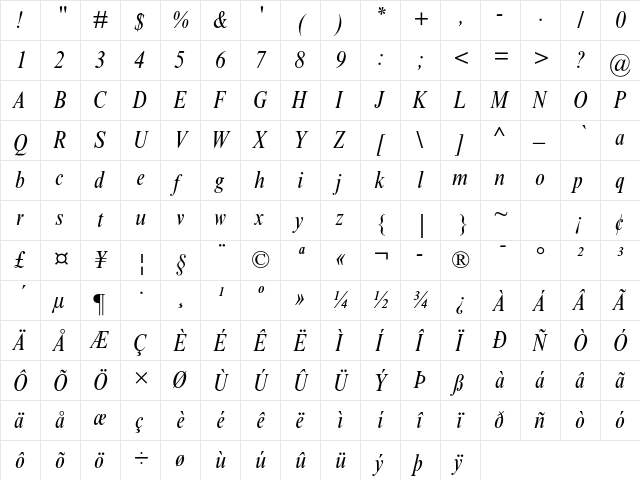
Times New Roman MT Std Condensed Italic Font Preview
| Designer | Starling Burgess, Victor Lardent, Stanley Morison |
Design Context for Times New Roman MT Std Typeface
Times New Roman MT Std is a composed and adaptable typeface that performs quietly and consistently across a wide range of design contexts. The dynamic lean of this cut emphasises speed and emphasis in any layout. The condensed width makes it efficient for tight spaces without sacrificing legibility.
Pro Tip: Try Times New Roman MT Std for annotation and caption copy alongside an upright companion — the contrast in angle creates a dynamic but ordered typographic system.